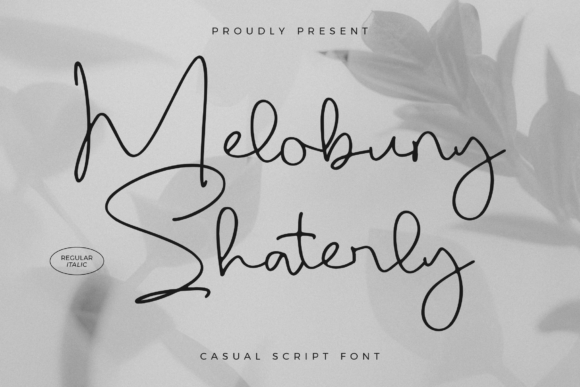
**Melobuny Shaterly Font: Unleash Your Creative Spirit**
In a digital world teeming with mundane fonts, Melobuny Shaterly emerges as a breath of fresh air, a script font family that captivates with its effortless charm and versatility. Created by the renowned Letterfabric Studio, Melobuny Shaterly is a symphony of flowing lines, delicate curves, and elegant swashes that will transform your designs into captivating masterpieces.
**A Font Crafted for Timeless Elegance**
Melobuny Shaterly draws inspiration from the timeless beauty of classic calligraphy, evoking a sense of sophistication and refinement. Its meticulously crafted characters exude an air of grace and elegance, adding a touch of luxury to any project they grace. Whether you're designing logos, branding materials, homeware designs, or product packaging, Melobuny Shaterly will elevate your creations to new heights of visual appeal.
**A Versatile Font to Suit Every Occasion**
With its remarkable versatility, Melobuny Shaterly effortlessly adapts to a wide range of design projects. Its elegant strokes lend a touch of sophistication to logos and branding, while its playful charm adds a touch of whimsy to homeware designs and product packaging. Whether you're creating posters, shopping bags, or t-shirts, Melobuny Shaterly will seamlessly blend with your vision, enhancing your designs with its timeless appeal.
**Experience the Magic of Melobuny Shaterly Today**